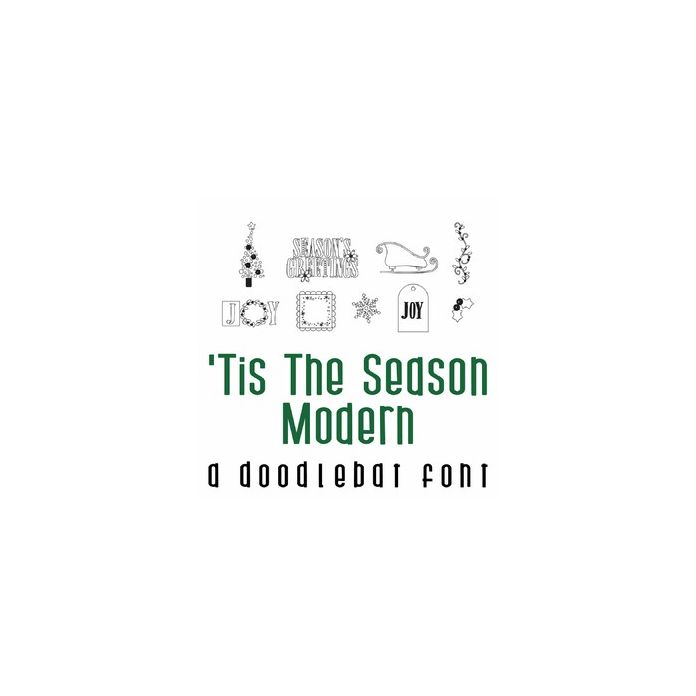
This fun doodlebat font features 26 doodle style Christmas themed imagery including tags, snowflakes and more. Perfect for cards, crafts, gifts, decor, scrap book pages, planner stickers and more!